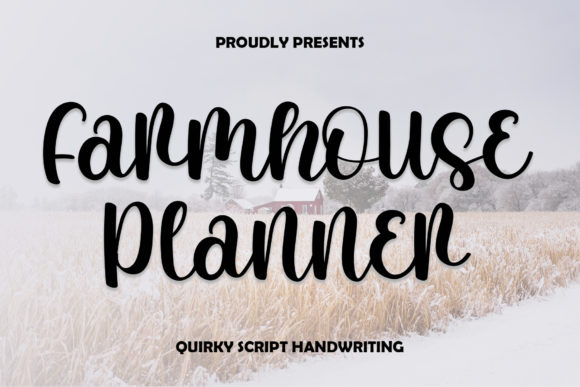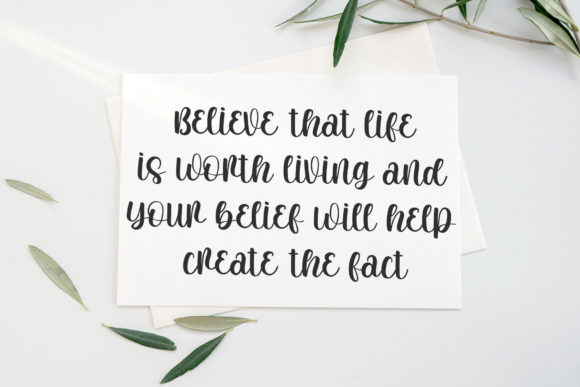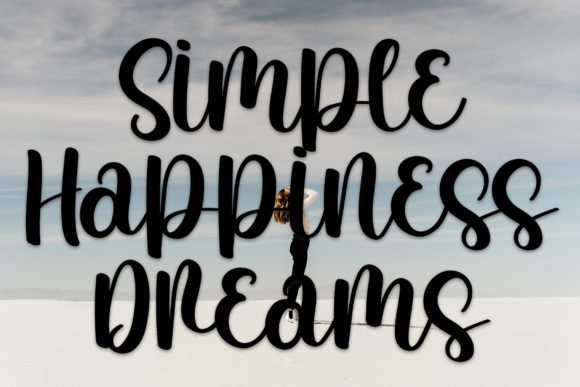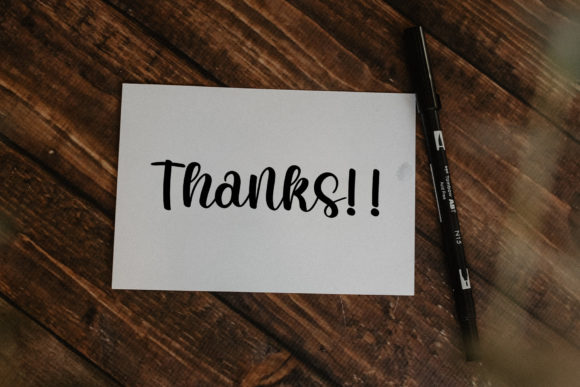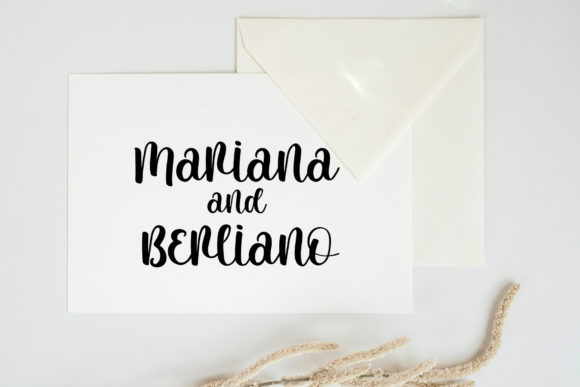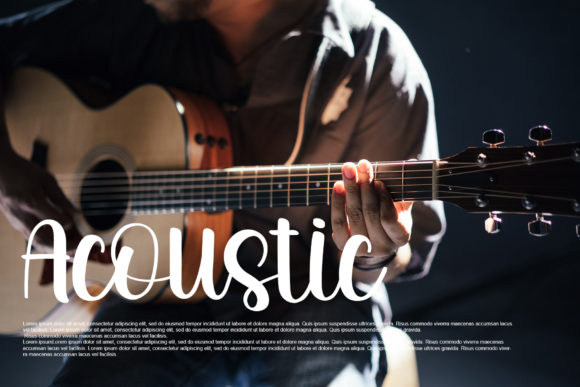
About Farmhouse Planner Font
Farmhouse Planner is a stylish and trendy script font. It looks stunning on wedding invitations, thank you cards, quotes, greeting cards, logos, business cards and every other design which needs a customized touch.